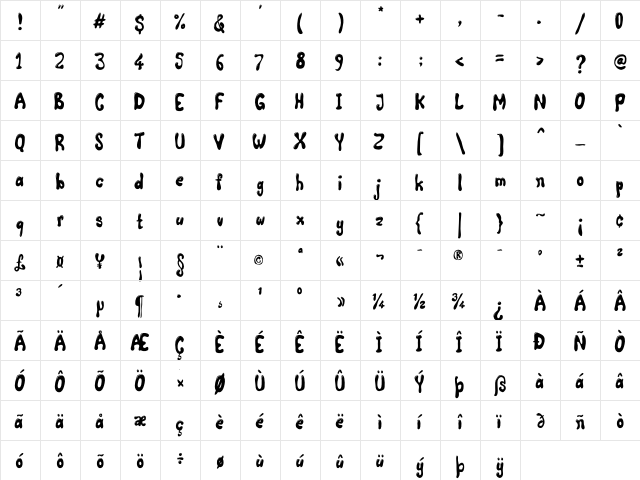
Comic Land Highlight Regular
Design Context for Comic Land Highlight Typeface
Comic Land Highlight has an approachable, lighthearted character — its loose, expressive forms are well-suited to children's content, casual branding, and fun-first design.
Font Pairing: Pairs well with a rounded or humanist sans for body copy, maintaining the friendly tone without relying on Comic Land Highlight to carry extended reading.
Pro Tip: Use Comic Land Highlight at larger display sizes where its expressive character can land. Pair with a clean, simple sans for body copy to maintain readability.